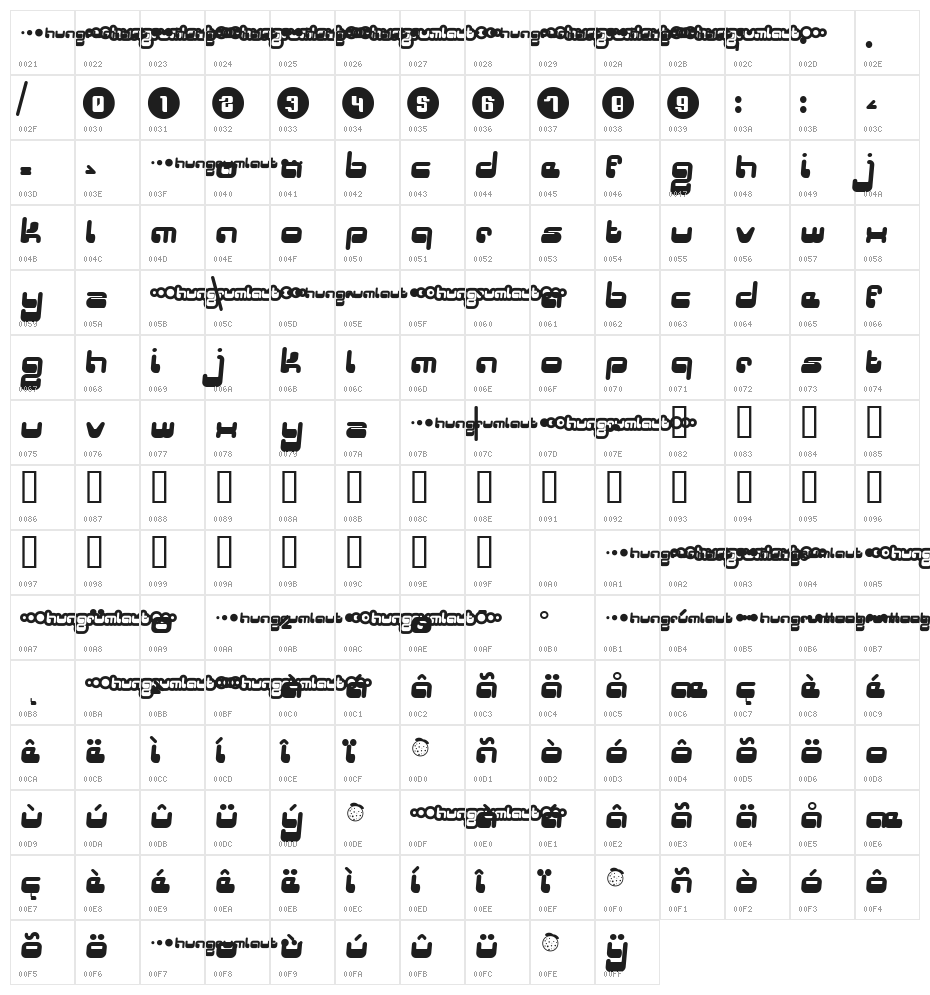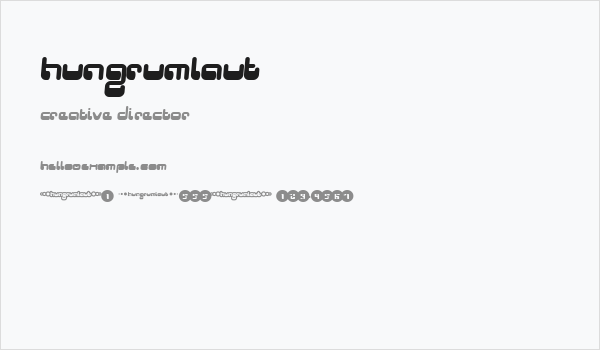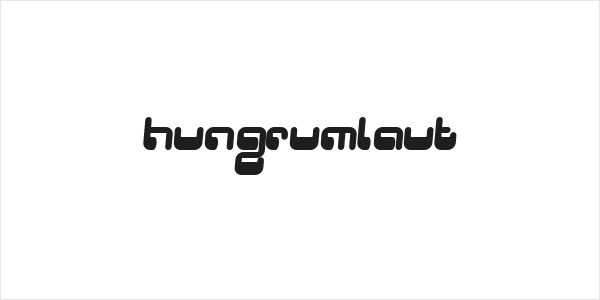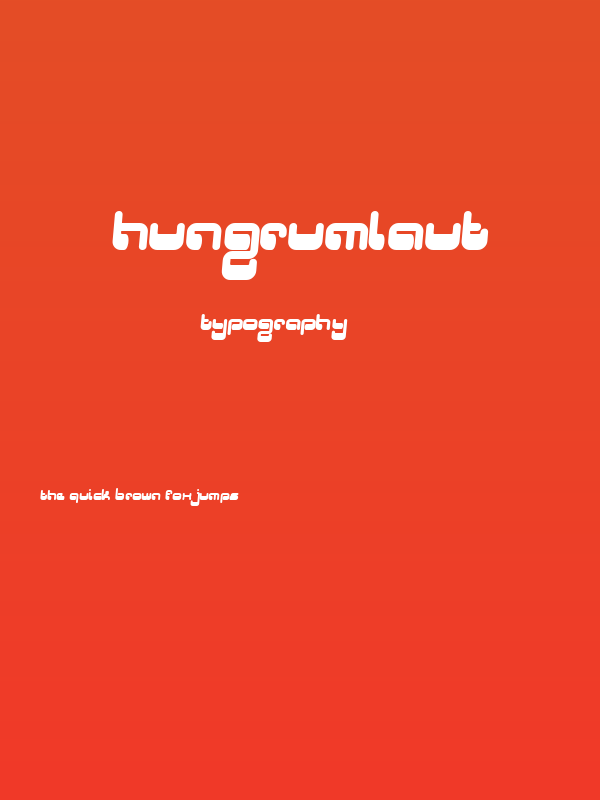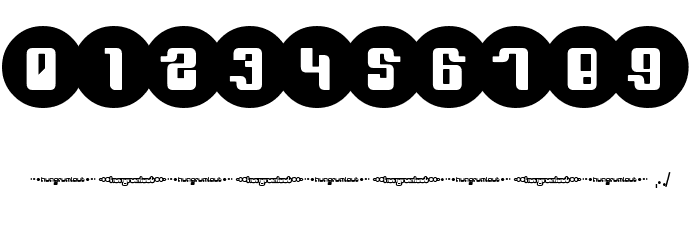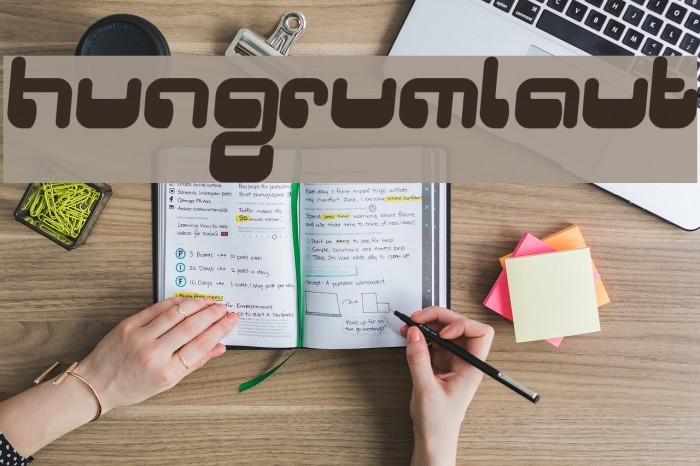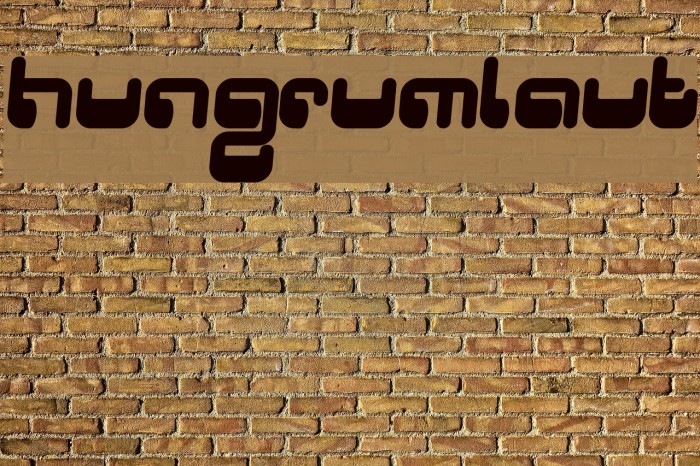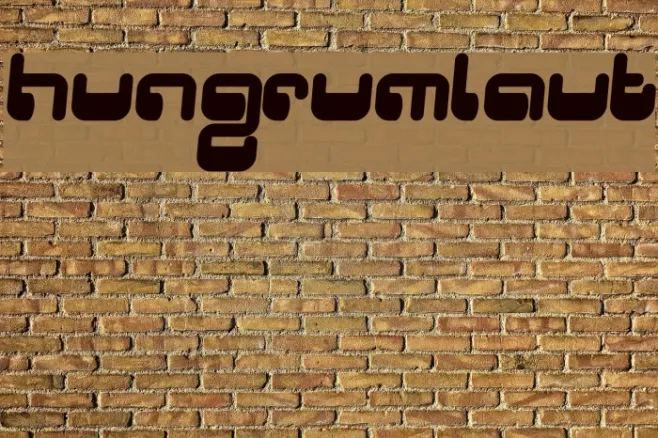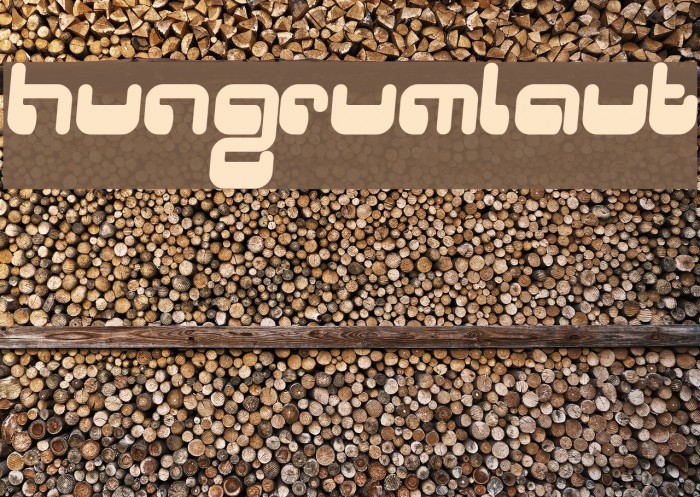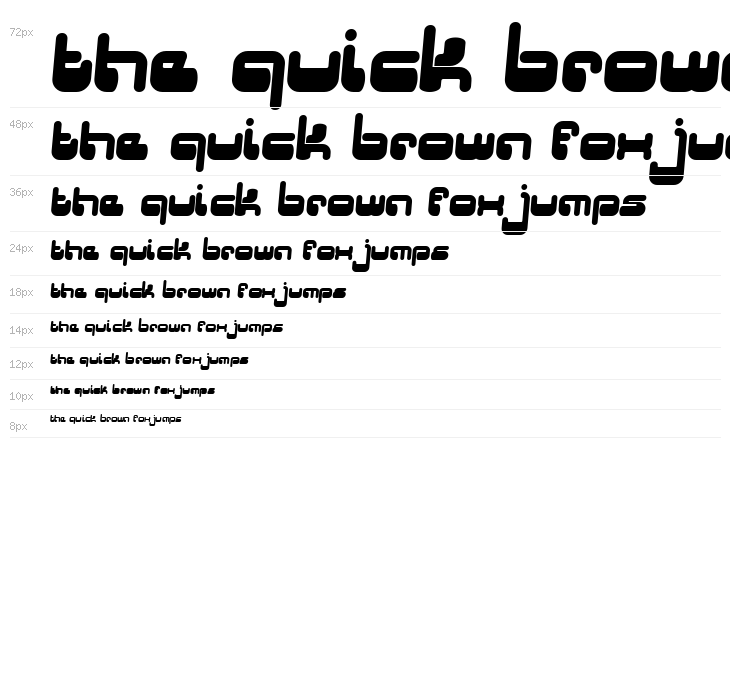
Hungrumlaut Font
Hungrumlaut Description
This font features a bold, rounded style with a futuristic and playful appearance. The characters are uniformly thick, creating a strong visual impact. Each letter has a unique, slightly geometric shape, contributing to its modern aesthetic. The numbers are enclosed in circular backgrounds, adding to the font's distinctive look. The overall design is cohesive, with consistent stroke widths and a smooth, flowing style that makes it suitable for eye-catching designs.
| Proposed Projects | Ideal for branding, posters, video game graphics, and any project requiring a modern, playful touch. |